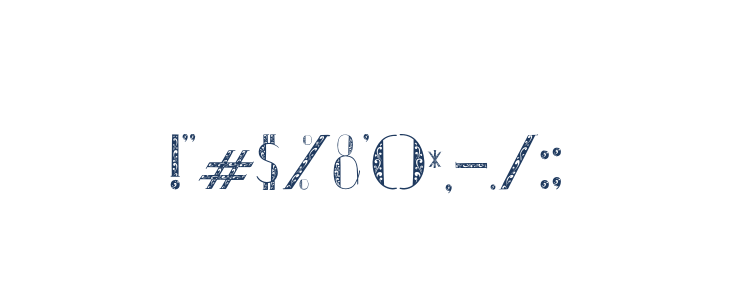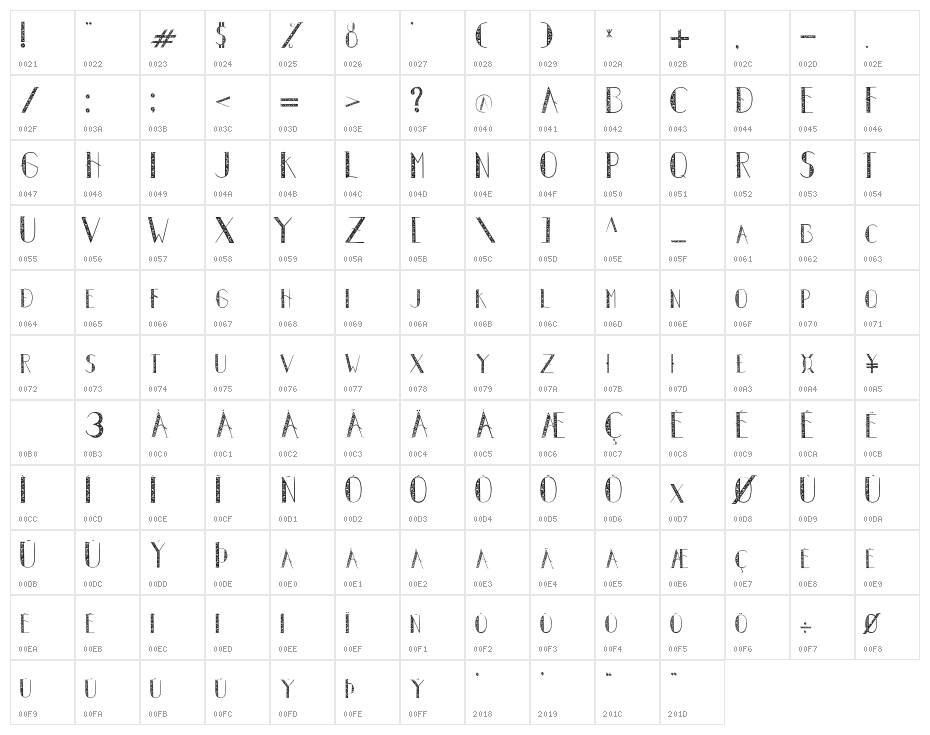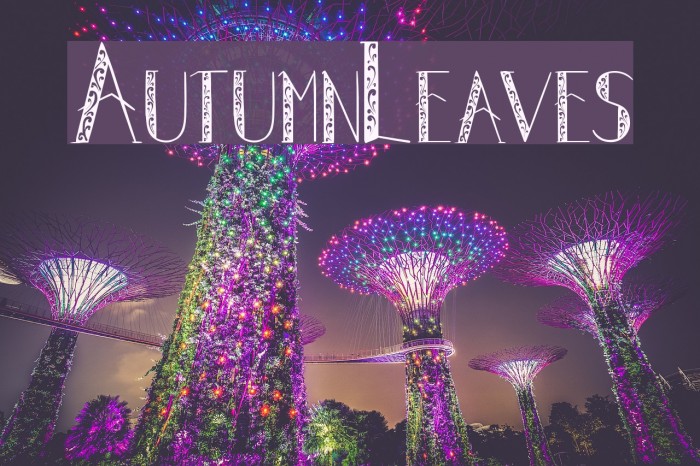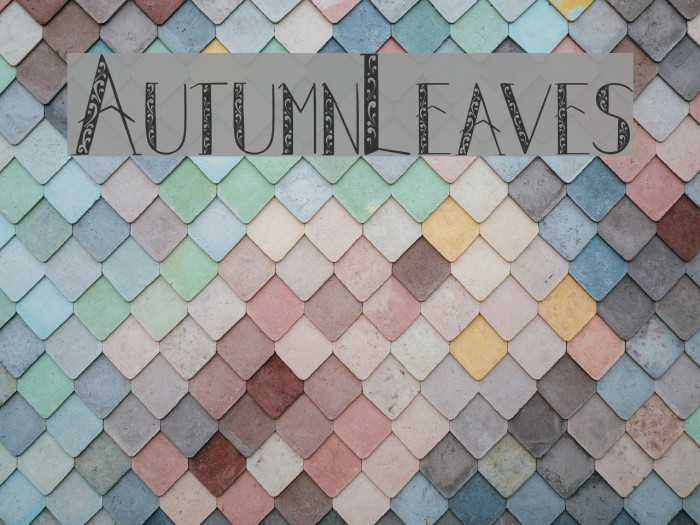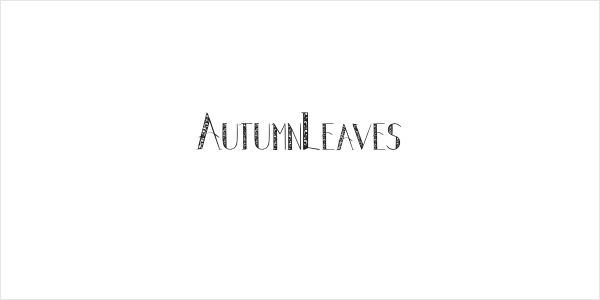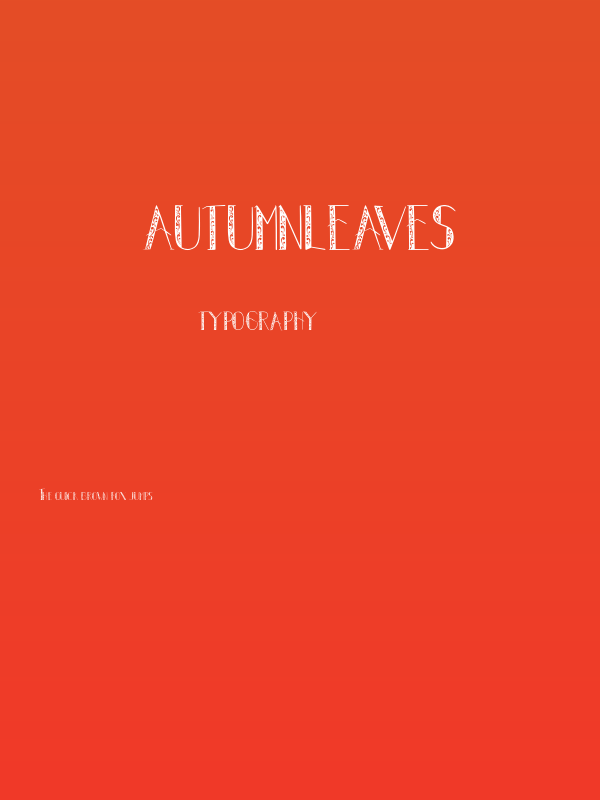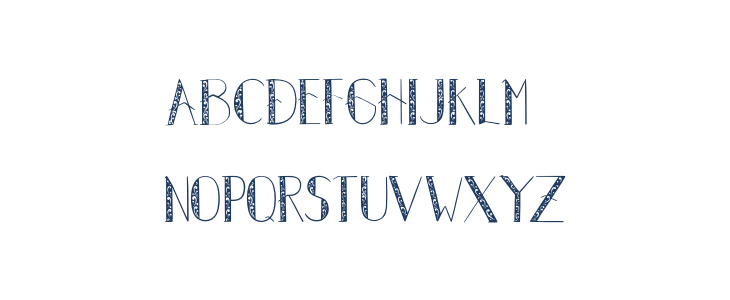
AutumnLeaves Font
AutumnLeaves Description
This font features an elegant and decorative style with intricate leaf patterns embedded within the strokes of each character. The uppercase letters are bold and commanding, with a unique flair that adds a touch of sophistication. The lowercase letters maintain the decorative theme, offering a consistent and cohesive look. The numerals and special characters are equally adorned with the leaf motif, ensuring a uniform appearance across all glyphs. This font is perfect for projects that require a touch of nature-inspired elegance and artistic flair.
| Proposed Projects | Ideal for wedding invitations, nature-themed branding, artistic posters, and eco-friendly product packaging. |